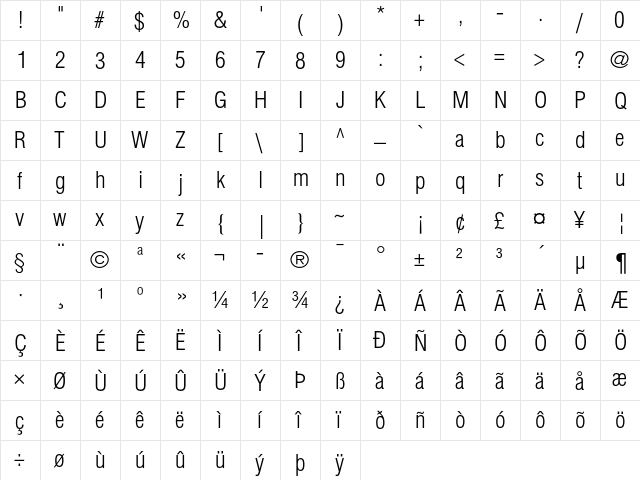
Helvetica LT Std Light Condensed Font Preview
| Style | Light Condensed |
| Designer | Max Miedinger |
Design Context for Helvetica LT Std Typeface
Helvetica LT Std offers clean, dependable letterforms without strong stylistic allegiance, making it a practical choice for designers who need flexibility. Its slender proportions lend an understated elegance to any composition. The condensed width makes it efficient for tight spaces without sacrificing legibility.